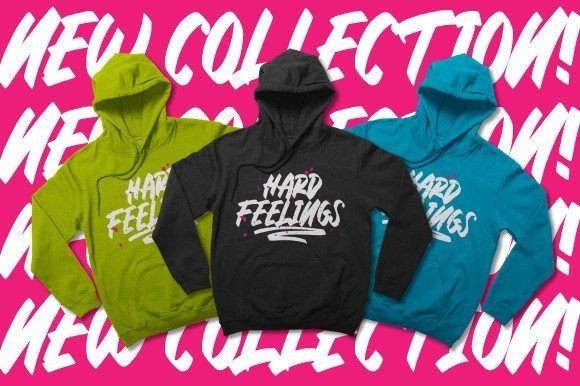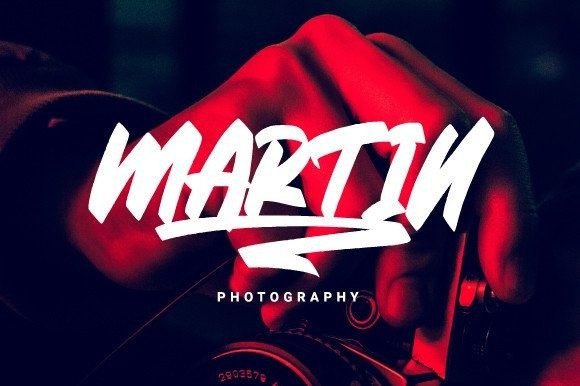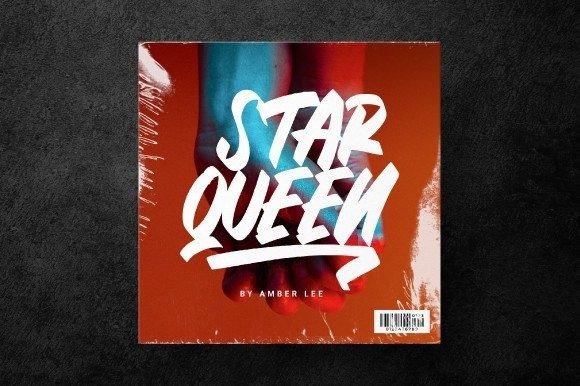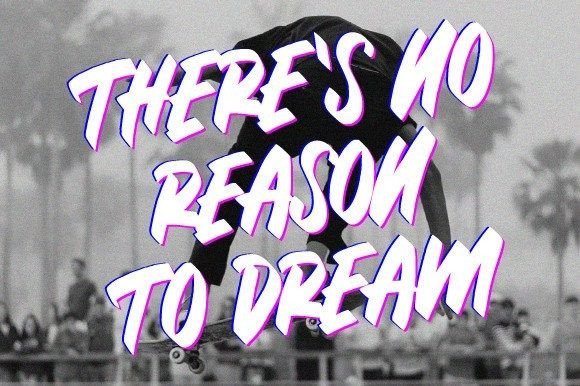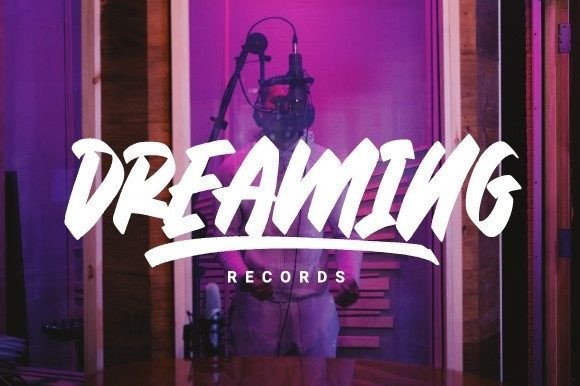
About Rising Harder Font
Rising Harder is a bold and stylish all-caps handwritten brush font, designed to make a strong statement in your creative projects. Its powerful strokes and distinctive style make it a perfect choice for a variety of applications, including merchandise designs, logos, posters, covers, and more. Adding Rising Harder to your creative arsenal is a surefire way to elevate your projects and make them truly outstanding.
The all-caps design of Rising Harder exudes strength and confidence, making it ideal for conveying a bold and impactful message. Whether you’re working on a logo that demands attention or creating merchandise designs that need a strong visual identity, Rising Harder delivers a sense of robustness and style.
Imagine this font enhancing a poster design, where each uppercase letter stands out with its commanding presence. Picture it adorning merchandise, adding a stylish and edgy touch to T-shirts or other products. Rising Harder’s versatility extends to various design contexts, making it a valuable asset for those looking to make a lasting impression.
Rising Harder isn’t just a font; it’s a design tool that empowers your creative projects with a bold and distinctive flair. The brush strokes give it an authentic and handcrafted feel, adding a touch of uniqueness to your designs. Whether you’re a seasoned designer or someone looking to make a statement, Rising Harder invites you to infuse your projects with strength and style.
Make your designs stand out, captivate your audience, and leave a lasting impact with Rising Harder. It’s the perfect choice for those who seek a font that exudes strength, style, and a touch of rugged elegance. Add Rising Harder to your creative toolkit and watch as your projects rise above the ordinary, becoming truly outstanding.